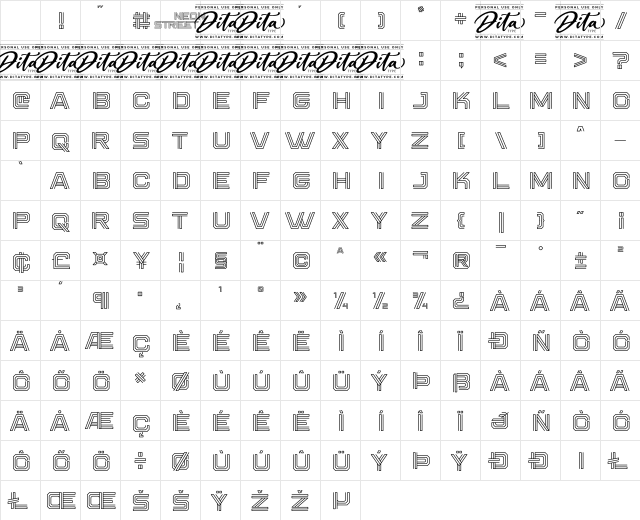
Neon Street has a distinctly futuristic character, with geometric precision and clean angles that feel at home in technology, gaming, and sci-fi contexts.
Pro Tip: Try Neon Street with generous letter-spacing in UI labels and navigation - the geometric forms benefit from room to breathe.